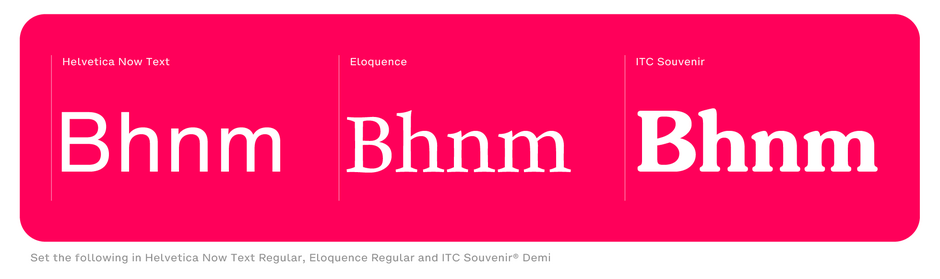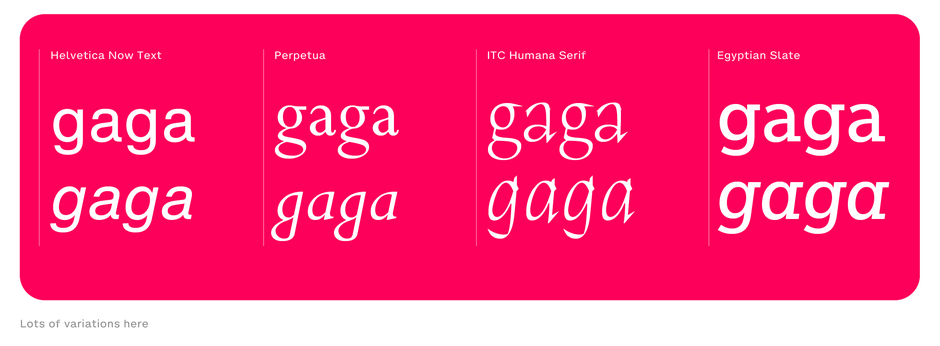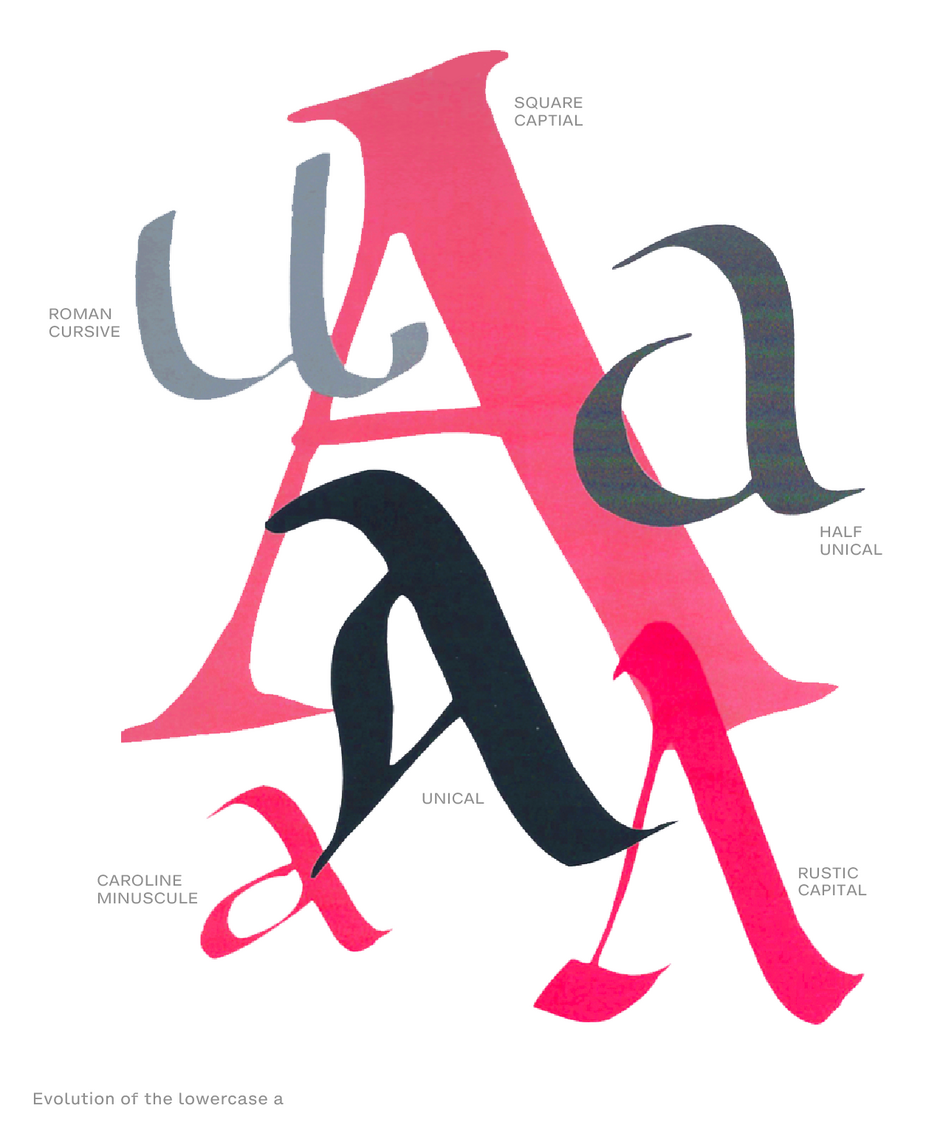
Manual: Two-Story Type
Quotas were important, even in the 2nd century
The basic shapes of the Roman Alphabet are pretty consistent. They may be embellished with serifs, ball terminals, swashes, and such, but a B is pretty much an upright stroke and two bowls. The m is basically an n with an additional hump and the n looks like an h with the ascender cut off.
There are, however, two distinctively different forms of the lowercase letters a and g. The one-story a (sometimes spelled storey) and the two-story a. The lowercase g also comes in single- and two-story variants. (The latter is sometimes referred to as the bowl and loop, or spectacles g).
The single-story version of the letters are the ones most of us learn to write as children and are commonly (but not exclusively) used in handwriting, calligraphy, and many italic fonts.
The two-story a and g are more common in Roman, or upright, typestyles. Both versions evolved from the capital letterform and the evolution of calligraphic Uncial scripts in Codex books – originating around the 2nd century. The codex form of book replaced earlier rolls of papyrus and wax tablets, and was developed in conjunction with the growing use of parchment and vellum as writing surfaces.
Uncial letters are also quicker and easier to draw, giving the scribes a leg-up turning out handwritten books in the shortest amount of time. Yup, quotas were important, even in the 2nd century.
The two-story versions of the a and g are also easier to differentiate from other one-story letters, aiding in legibility of textual content.
There is no set rule for the inclusion either version of the characters in a typeface. Knowing the terminology and recognizing the differences between the versions provides a tool to observe differences in typestyles, a language to discuss them and some insight into ensuring legible text copy.